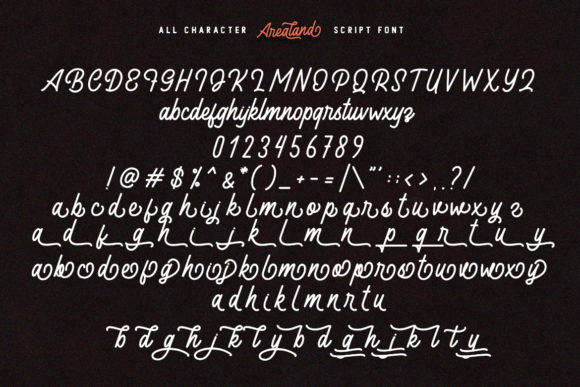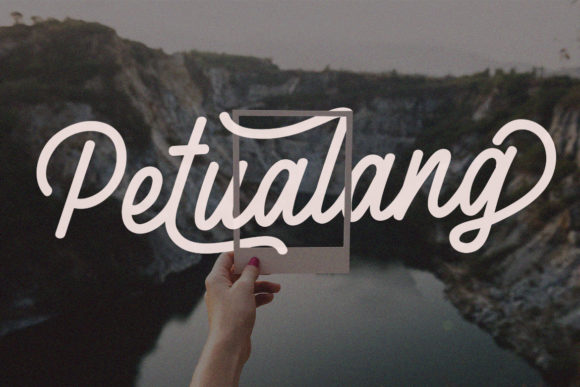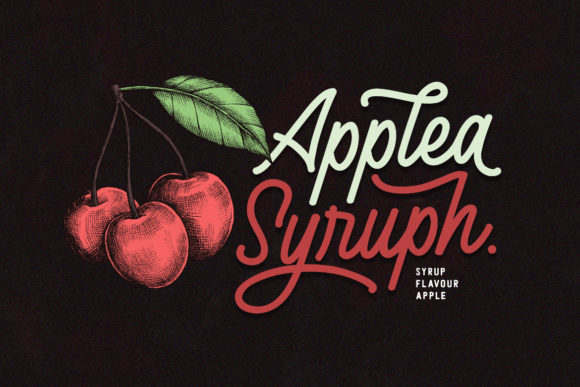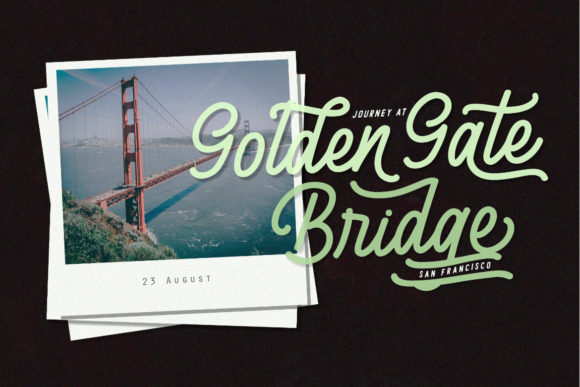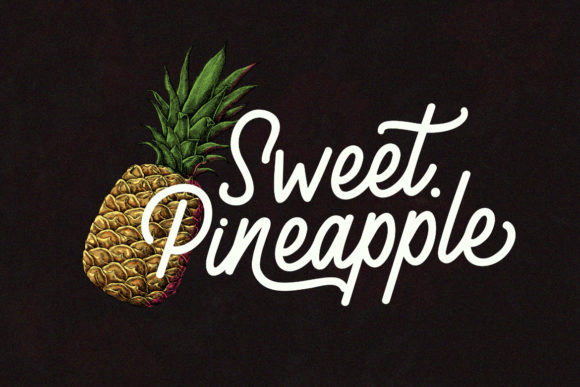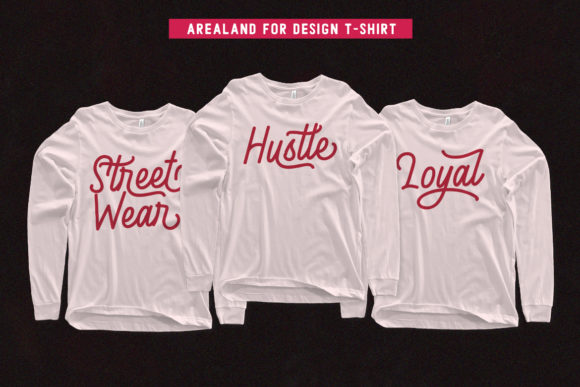
Arealand Font: Elevate Your Designs with a Fresh and Flowing Handwritten Style
In the world of typography, fonts play a crucial role in bringing creativity and personality to designs. For designers and crafters looking for a unique and expressive font, Arealand Font is an excellent choice. This fresh and flowing handwritten font is perfect for adding a touch of elegance and sophistication to various design projects. In this article, we’ll explore the features and benefits of Arealand Font and how it can elevate your designs.
What is Arealand Font?
Arealand Font is a beautifully crafted handwritten font that exudes a sense of fluidity and movement. Its fresh and flowing style makes it ideal for designs that require a touch of elegance and refinement. The font is designed to be versatile, making it suitable for a wide range of applications, from digital designs to print materials.
Key Features of Arealand Font
- Handwritten Style: The font boasts a beautiful handwritten style that adds a personal touch to your designs. Its flowing lines and curves create a sense of movement and fluidity, making it perfect for designs that require a touch of elegance.
- Versatility: Arealand Font is designed to be versatile, making it suitable for a wide range of applications, including digital designs, print materials, and more.
Benefits of Using Arealand Font
So, why choose Arealand Font for your designs? Here are some benefits of using this beautiful font:
- Unique and Expressive: Arealand Font adds a unique and expressive touch to your designs, setting them apart from others.
- Elegant and Sophisticated: The font’s elegant and sophisticated style makes it perfect for designs that require a touch of refinement.
- Time-Saving: The font’s versatility and ease of use make it a time-saving solution for designers and crafters.
Use Cases for Arealand Font
Arealand Font is suitable for a wide range of design applications, including:
- Digital Designs: Use Arealand Font to create stunning digital designs, such as social media graphics, blog posts, and more.
- Print Materials: The font is perfect for print materials, including brochures, flyers, posters, and more.
- Crafting: Arealand Font is a great choice for crafters who want to add a personal touch to their projects, such as handmade cards, scrapbooking, and more.
Tips for Getting the Most Out of Arealand Font
To get the most out of Arealand Font, here are some tips:
- Experiment with Different Sizes: Try using Arealand Font in different sizes to create visual interest and hierarchy in your designs.
- Combine with Other Fonts: Combine Arealand Font with other fonts to create a unique and expressive typography.
- Play with Swashes: Use the font’s swashes to add a touch of elegance and sophistication to your designs.
In conclusion, Arealand Font is a fresh and flowing handwritten font that offers a unique and expressive way to elevate your designs. With its PUA encoding, elegant style, and versatility, this font is perfect for designers and crafters looking for a high-quality font that can add a touch of elegance and sophistication to their projects. So, explore the endless possibilities of Arealand Font and take your designs to the next level!